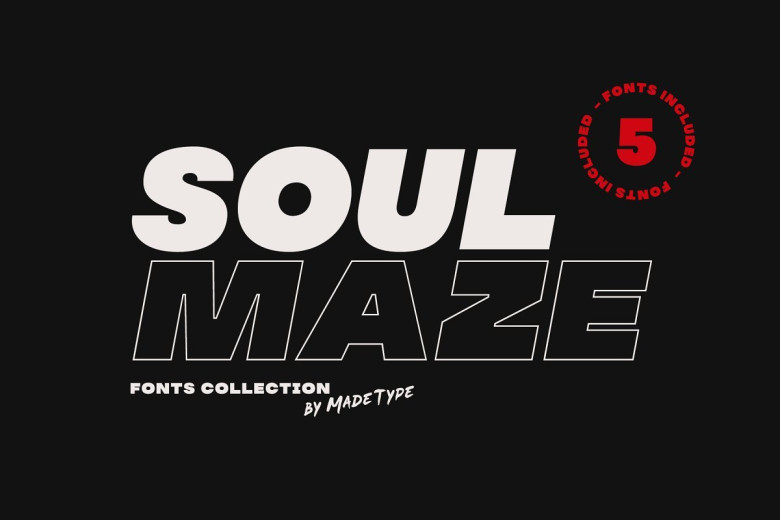
MADE Soulmaze Font Collection
This is a display fonts collection. The collection includes 5 fonts! Say hello to the Soulmaze Font! It is designed and shared by MadeType. MADE Soulmaze Font Collection – Complimenting the heavy weight, it’s designed with love and optimized carefully to deliver sharp, modern and elegant text; it also works great for big statements. Inspired by a graphic designer dream of a powerful and balanced font family.